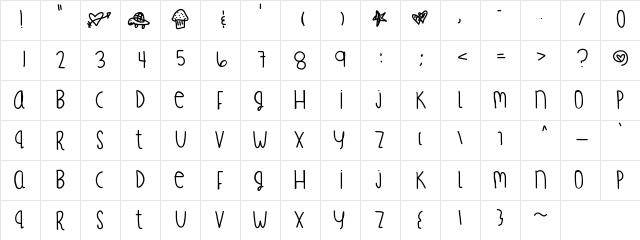
TreasureFingers Medium Free Font
TreasureFingers Medium
Design Context for TreasureFingers
TreasureFingers is a composed and adaptable typeface that performs quietly and consistently across a wide range of design contexts.
Pro Tip: Use TreasureFingers in both headline and body roles to test its range before committing to a single application.